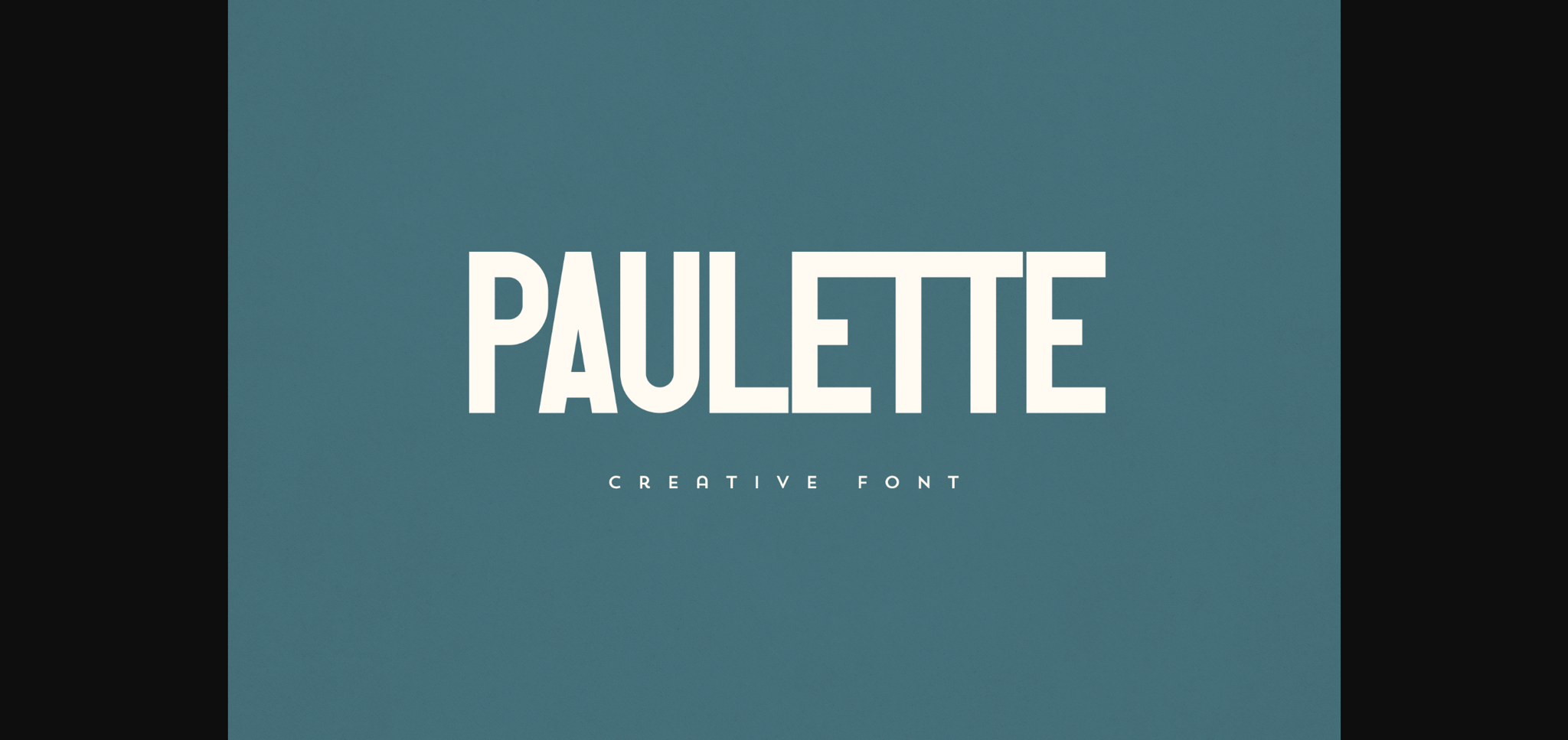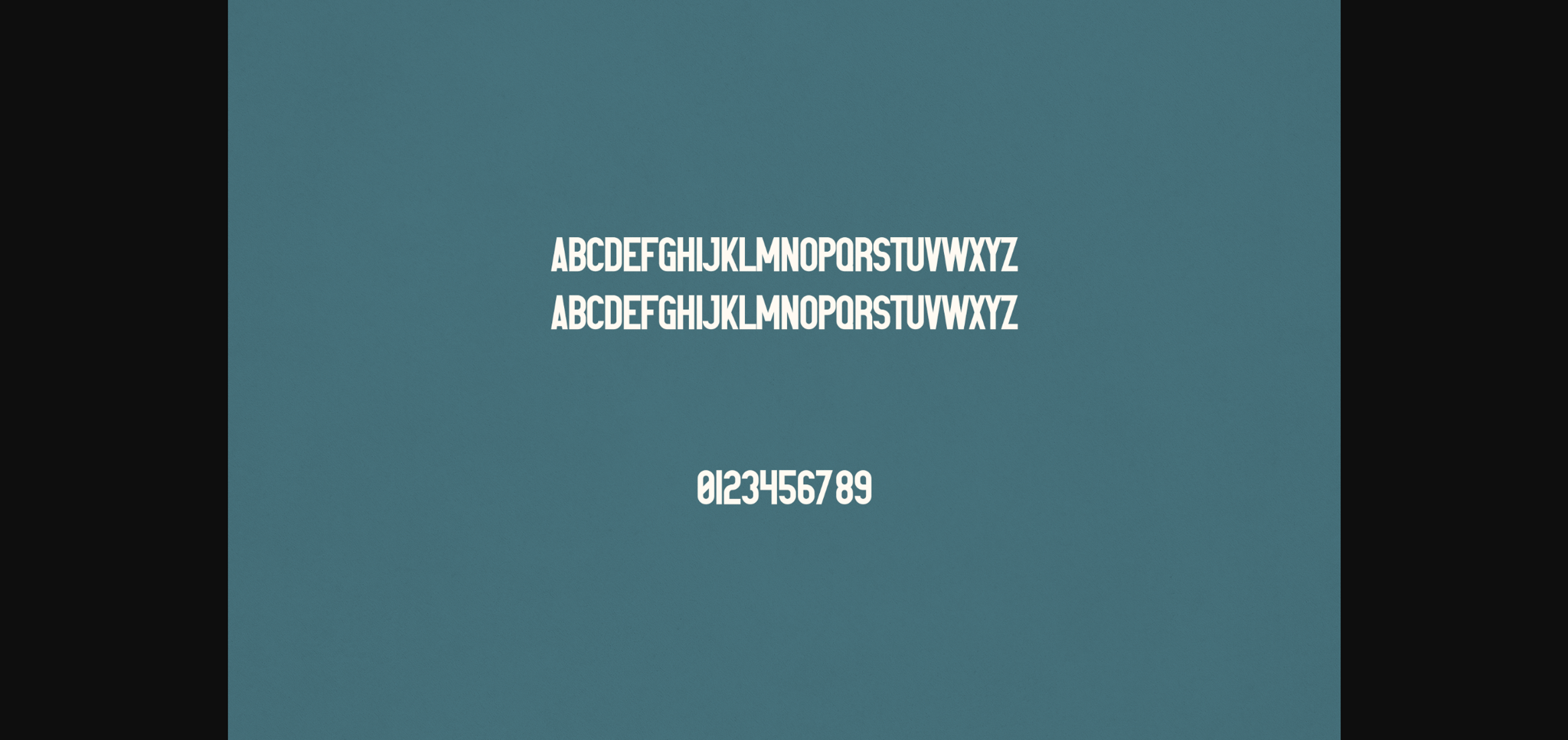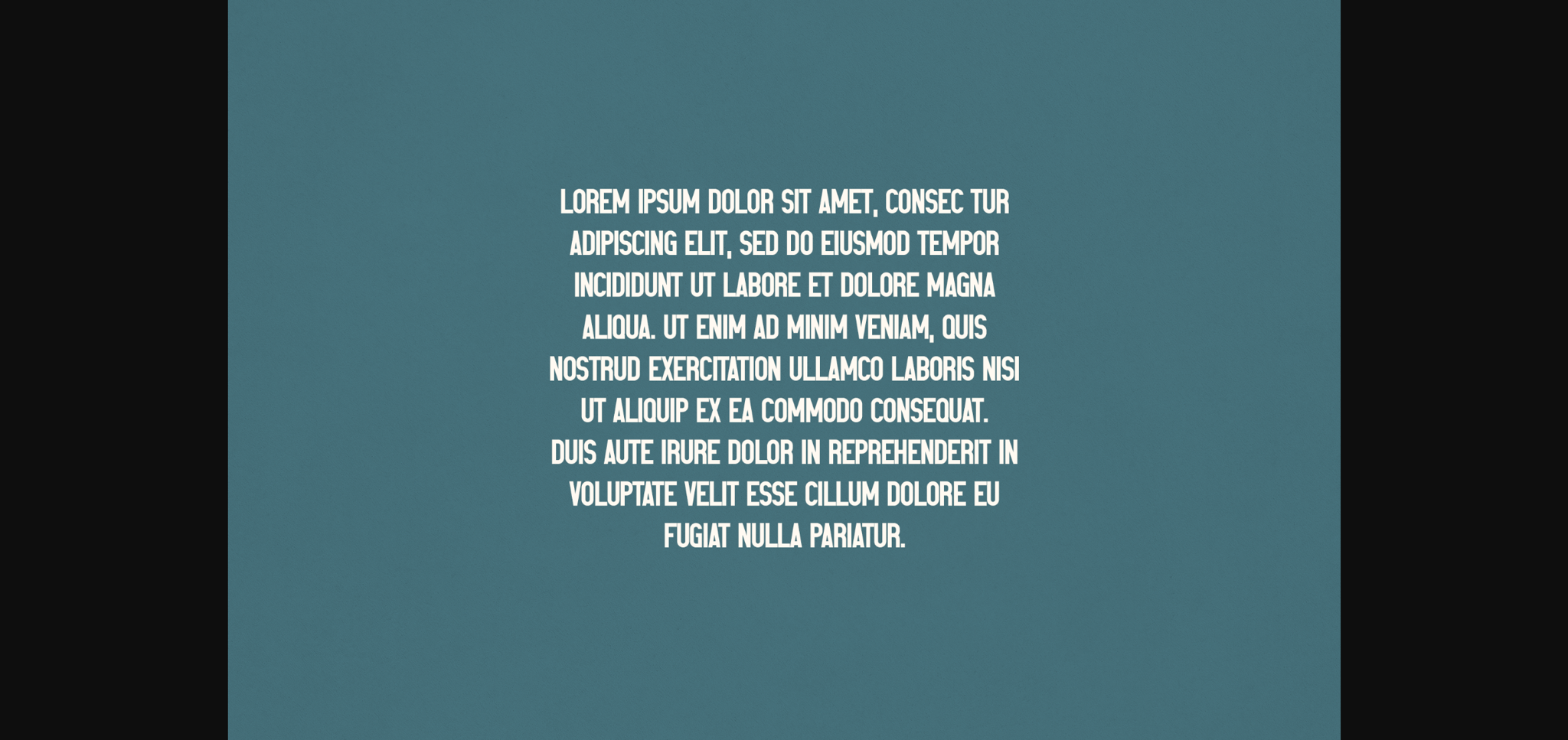
About Paulette Font
Paulette is an elegant and versatile sans serif font that will make your typography truly unique! It will enchant every logo, branding, headline, or plain text!